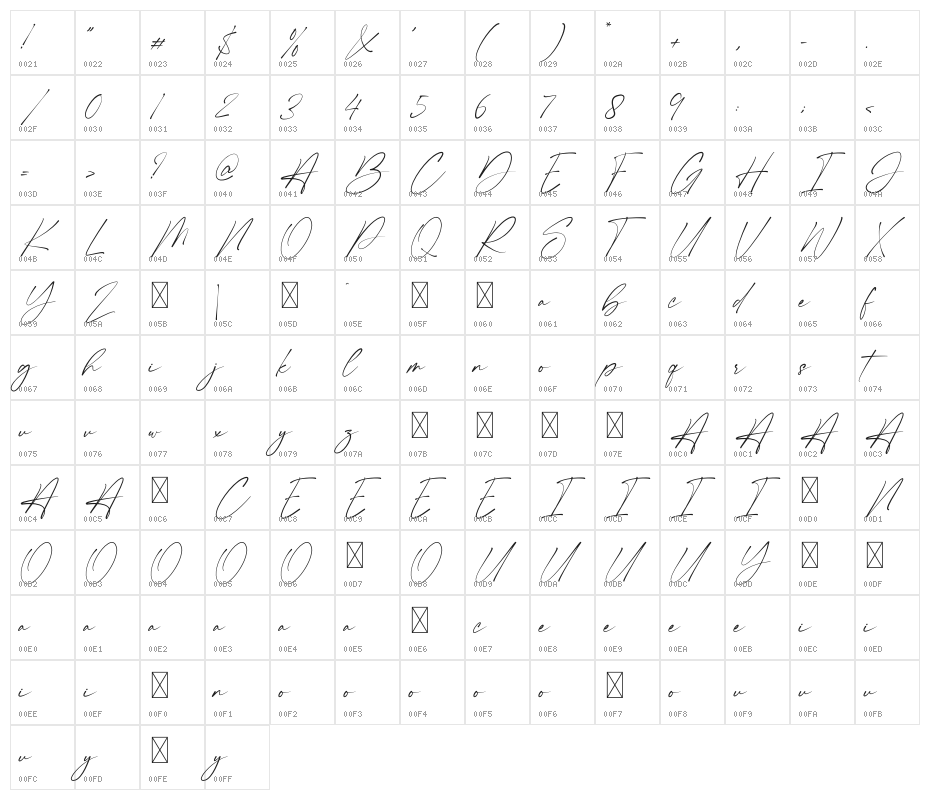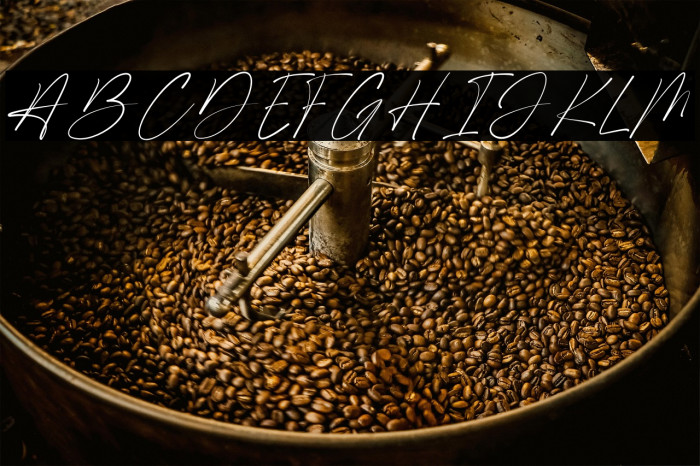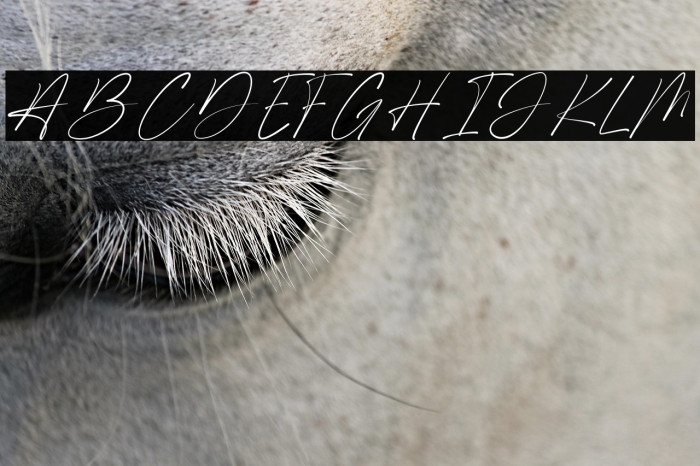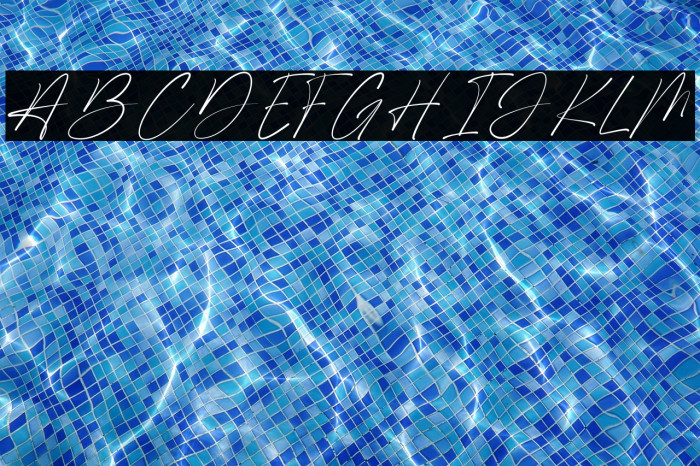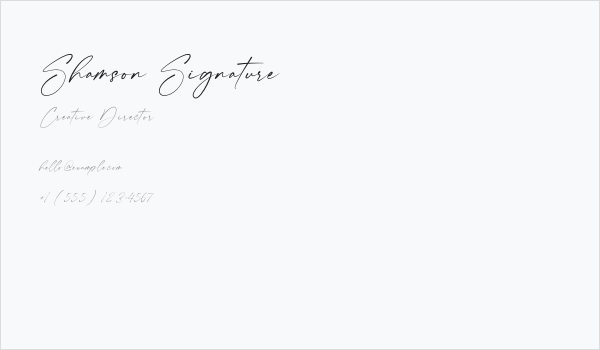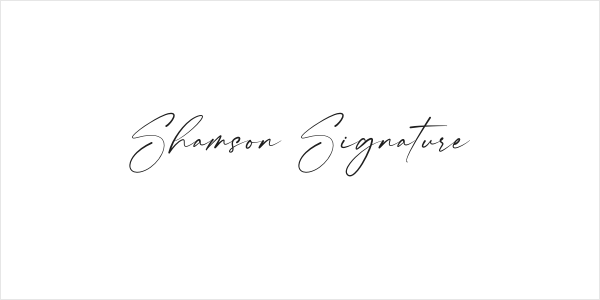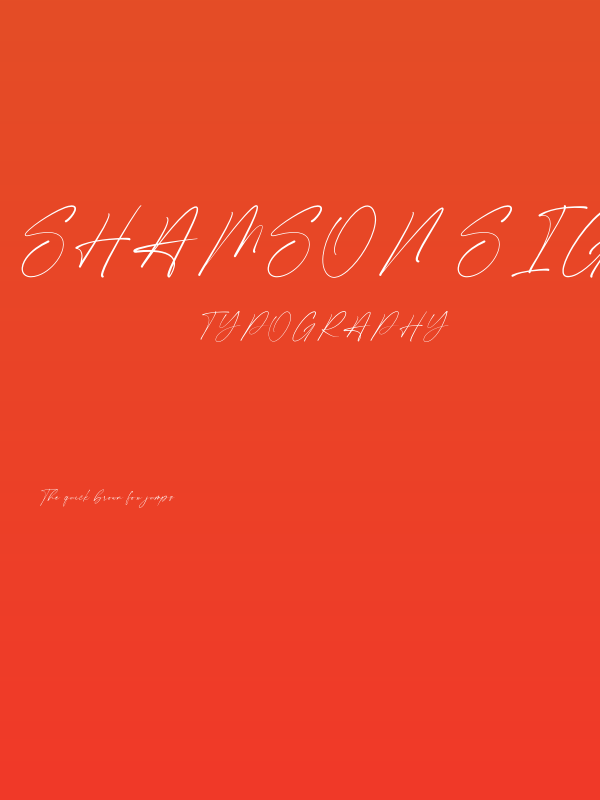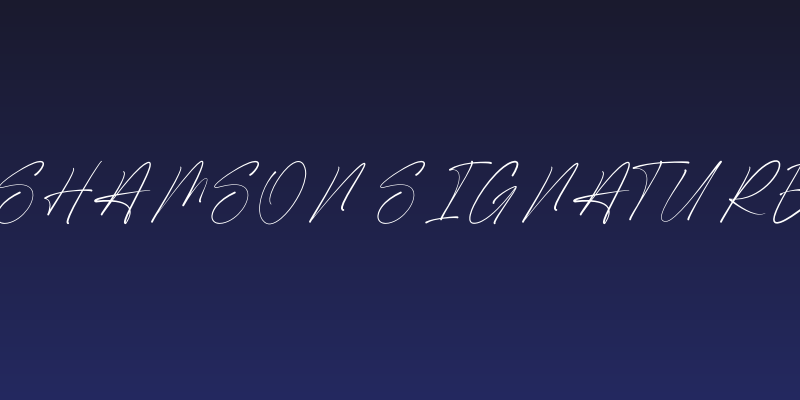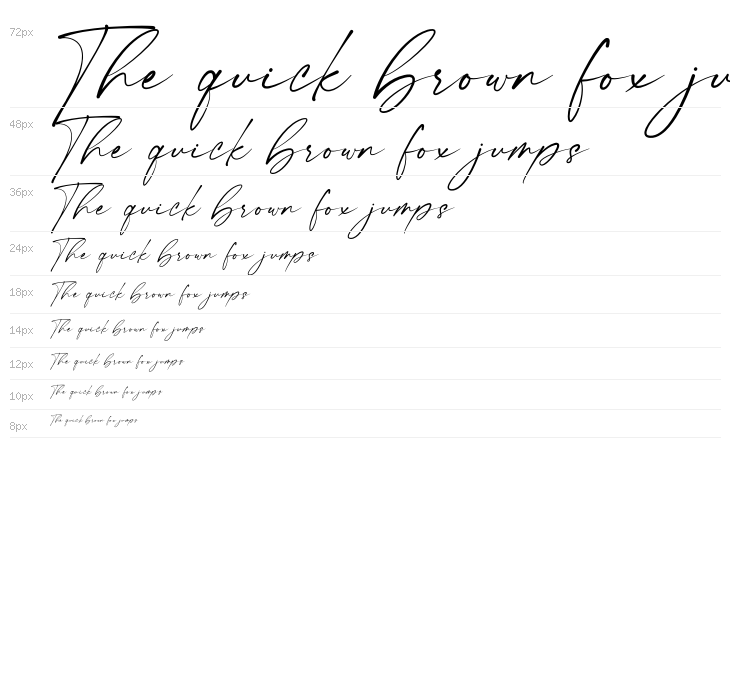
Shamson Signature Font
Shamson Signature Description
This font exudes elegance and fluidity, characterized by its cursive, handwritten style. The uppercase letters are slender and slightly slanted, giving a sense of motion and grace. The lowercase letters are more pronounced, with smooth, flowing lines that create a harmonious balance. Numbers and special characters maintain the same fluidity, ensuring consistency throughout. The overall appearance is sophisticated and stylish, making it ideal for projects that require a personal touch or a sense of luxury.
| Overall Style | Elegant, Sophisticated |
| Use Case | Logos, Invitations, Personal Branding |
| Proposed Projects | Ideal for wedding invitations, personal branding, elegant logos, and high-end product packaging. |